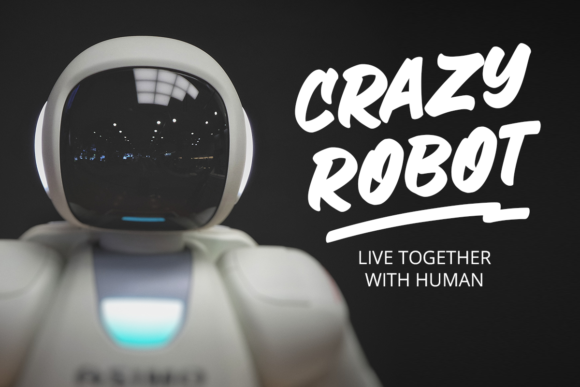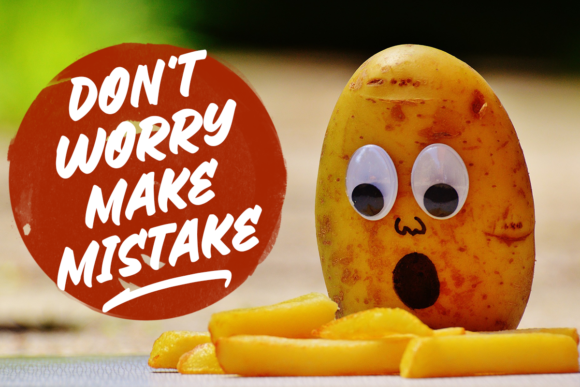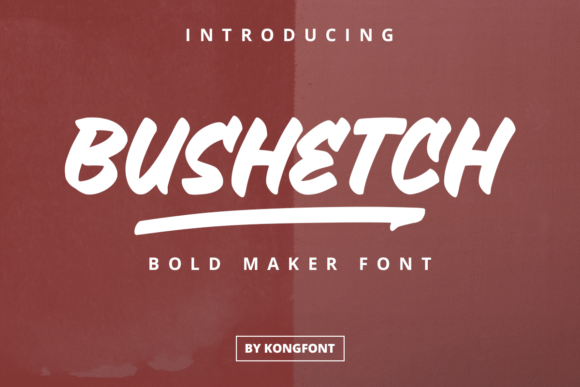
Introducing Bushetch Font: The Trendy and Playful Display Font for Crafters and Designers
In the world of typography, fonts play a crucial role in conveying messages, expressing emotions, and creating visual identities. For crafters and designers, finding the right font can be a daunting task, especially when it comes to creating unique and eye-catching designs. This is where Bushetch Font comes in – a trendy and playful display font that is perfect for a wide range of design projects.
What is Bushetch Font?
Bushetch Font is a modern and stylish display font created by Kong Font Studio, a renowned font designer on Creative Fabrica. This font is designed to add a touch of playfulness and sophistication to any design project. Its unique and quirky style makes it perfect for crafters and designers who want to create visually appealing designs that stand out from the crowd.
Key Features of Bushetch Font
So, what makes Bushetch Font so special? Here are some of its key features:
- Trendy and Playful: Bushetch Font has a modern and trendy feel to it, making it perfect for designers who want to create fresh and youthful designs.
- Display Font: This font is specifically designed as a display font, making it ideal for headlines, titles, and short text.
- Hand-Drawn: Bushetch Font has a hand-drawn feel to it, giving it a unique and personal touch.
- Versatile: This font can be used for a wide range of design projects, including product packaging, branding, magazine covers, social media, and more.
Use Cases for Bushetch Font
Bushetch Font is a versatile font that can be used for various design projects. Here are some use cases:
- Product Packaging: Add a touch of personality to your product packaging with Bushetch Font. It’s perfect for labels, tags, and branding materials.
- Branding Projects: Create a unique and memorable brand identity with Bushetch Font. It’s ideal for logos, business cards, and letterheads.
- Magazine Covers: Make your magazine cover stand out with Bushetch Font. Its playful and trendy style is sure to grab attention.
- Social Media: Use Bushetch Font to create engaging social media graphics, such as Facebook posts, Instagram captions, and Twitter headers.
- Wedding Designs: Add a touch of whimsy and romance to your wedding designs, such as wedding invitations, save-the-date cards, and ceremony programs.
Why Choose Bushetch Font?
With so many fonts available, why choose Bushetch Font? Here are some reasons:
- Unique Style: Bushetch Font has a unique and distinctive style that sets it apart from other fonts.
- Easy to Read: Despite its playful style, Bushetch Font is easy to read, making it perfect for short text and headlines.
- High-Quality: Bushetch Font is a high-quality font designed by Kong Font Studio, ensuring that it’s well-crafted and reliable.
In conclusion, Bushetch Font is a trendy and playful display font that’s perfect for crafters and designers. Its unique style, versatility, and high-quality design make it an excellent choice for a wide range of design projects. Whether you’re creating product packaging, branding materials, or social media graphics, Bushetch Font is sure to add a touch of personality and whimsy to your designs.